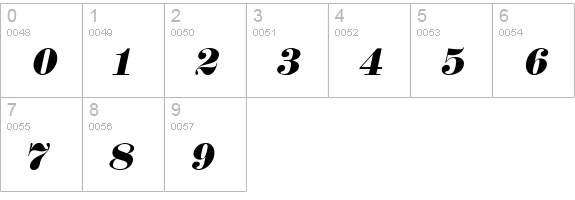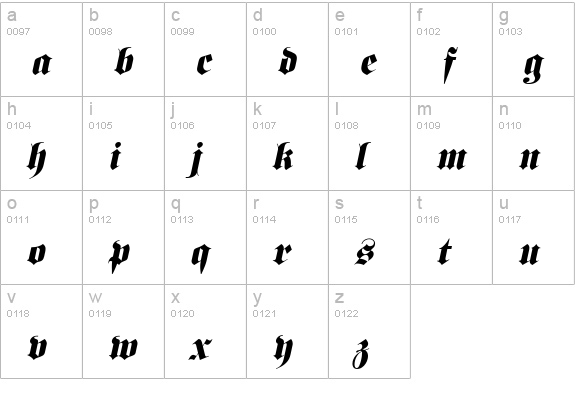
Frank Italic is a distinctive, italic variant in the Frank typeface family \xE2\x80\x94 well suited to design and typography projects.
Frank Italic is a sleek and modern font that adds a touch of sophistication to any design project. With its elegant curves and stylish appearance, this font is perfect for creating eye-catching headlines, titles, and quotes. The italicized version of the Frank font family brings a sense of movement and flair to your text, making it stand out in a subtle yet impactful way. Best of all, Frank Italic is available for free download at FontsMarket.com. Whether you are working on a personal project or a professional assignment, this font is a versatile choice that will elevate your work to the next level. Don't miss out on the opportunity to add Frank Italic to your font collection and enhance your designs with its unique charm and sophistication.